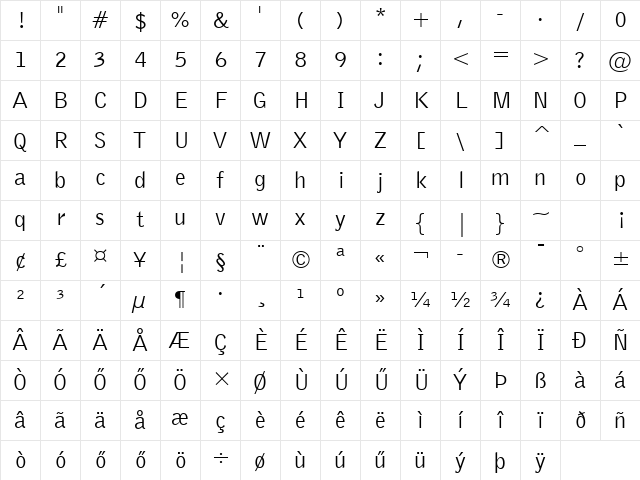
Hu_Belldkar Regular Free Font
Hu_Belldkar Regular
Complete Hu_Belldkar Regular glyph index. Displaying only characters natively supported by Hu_Belldkar Regular font.
Design Context for Hu_Belldkar
Hu_Belldkar is a composed and adaptable typeface that performs quietly and consistently across a wide range of design contexts.